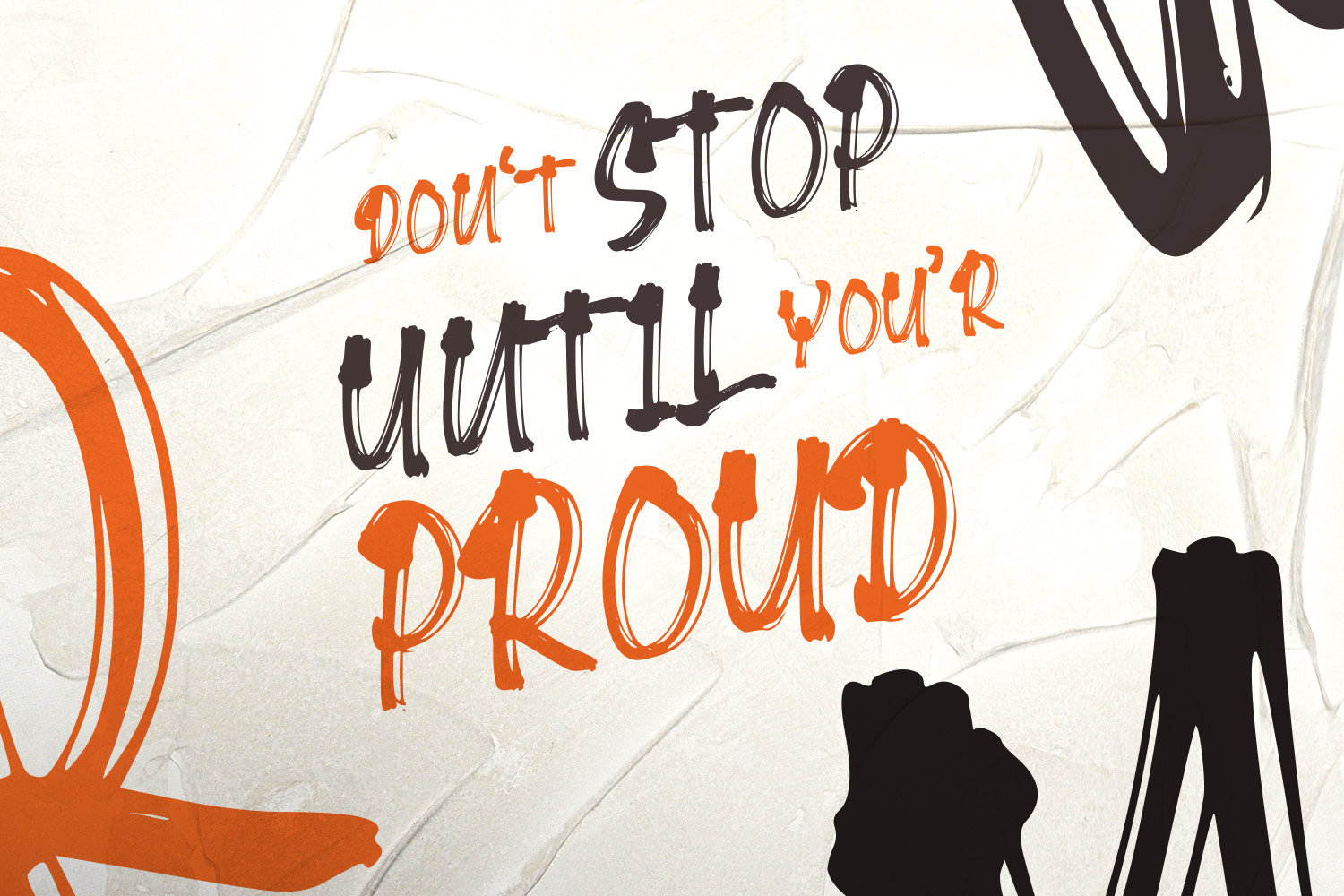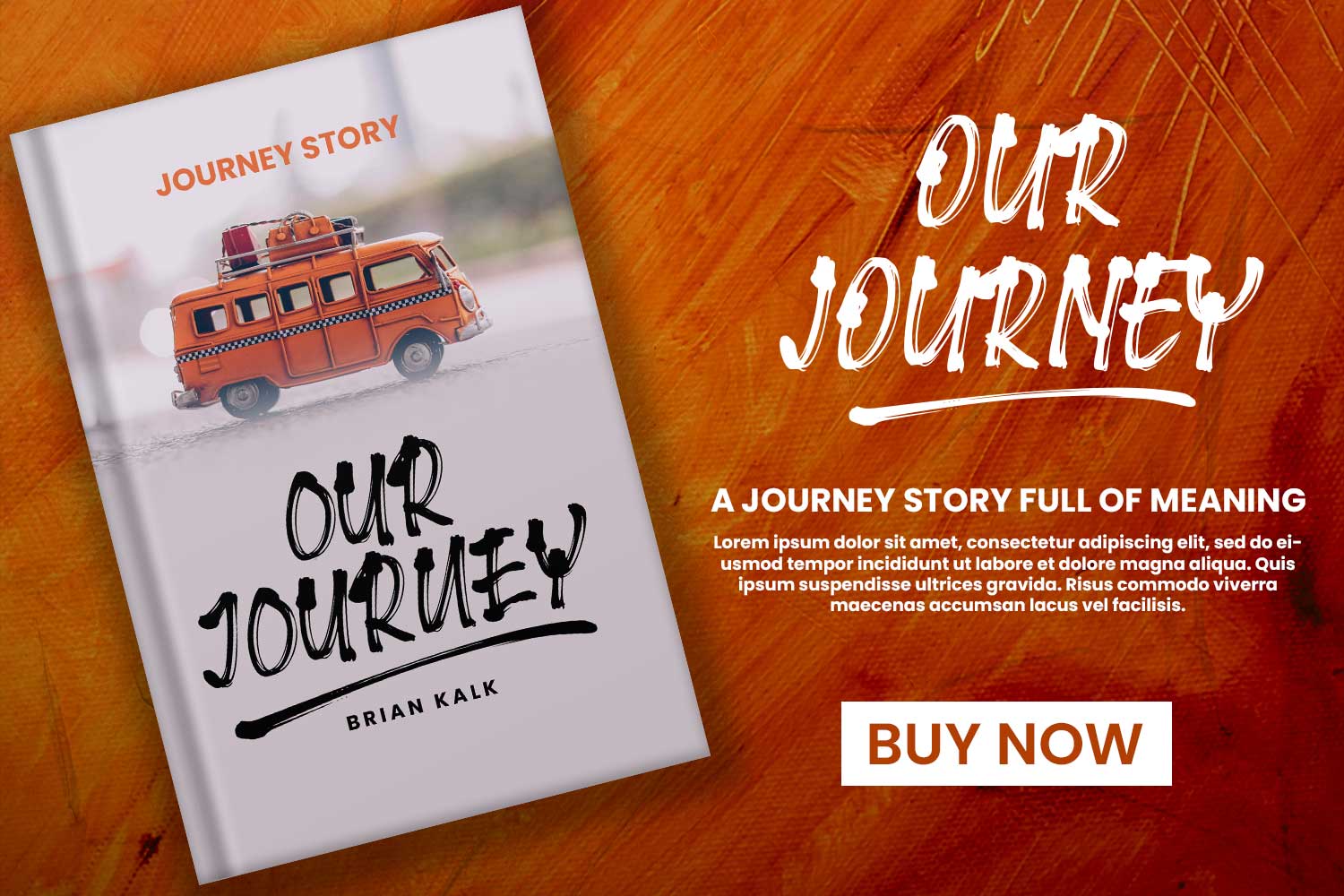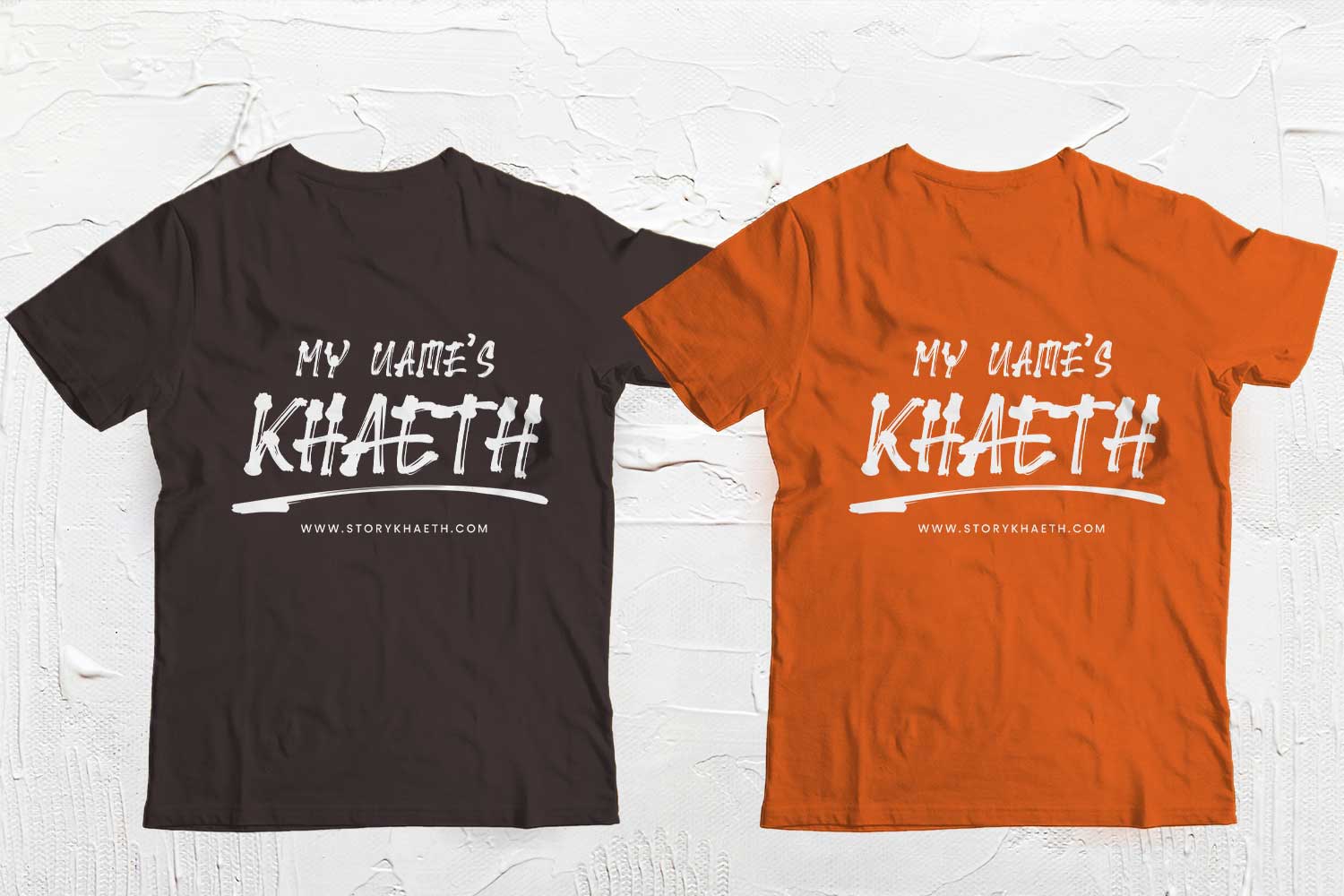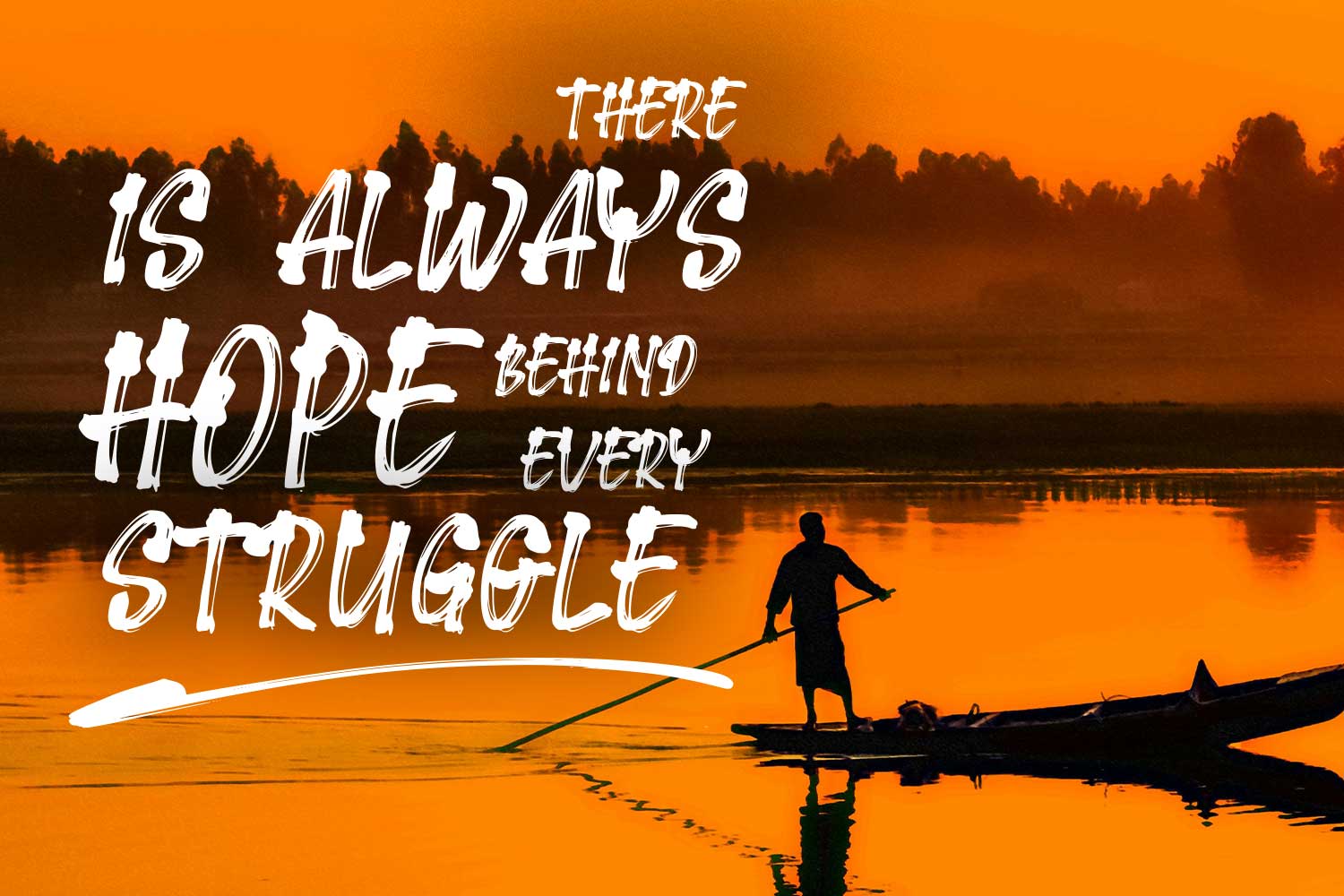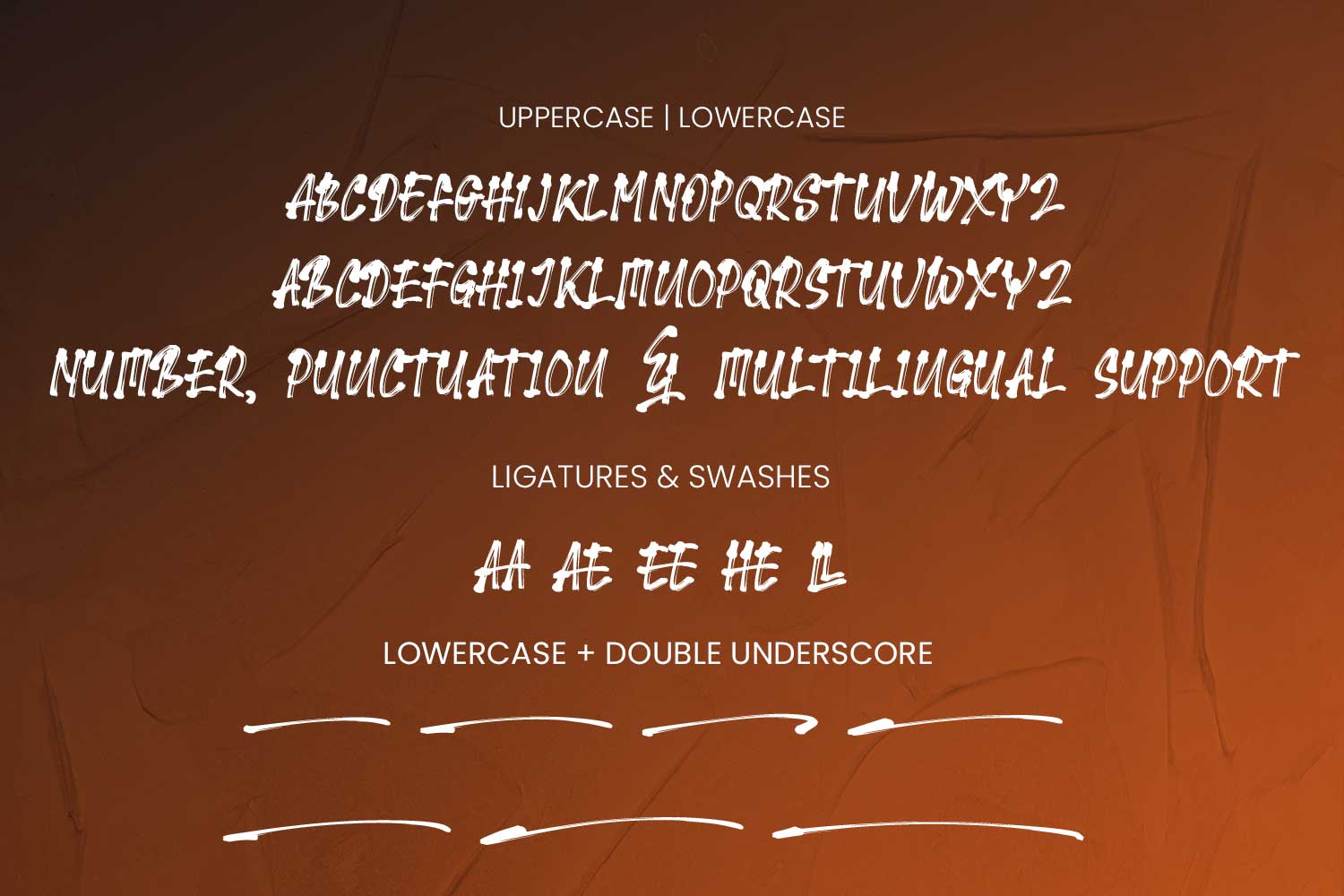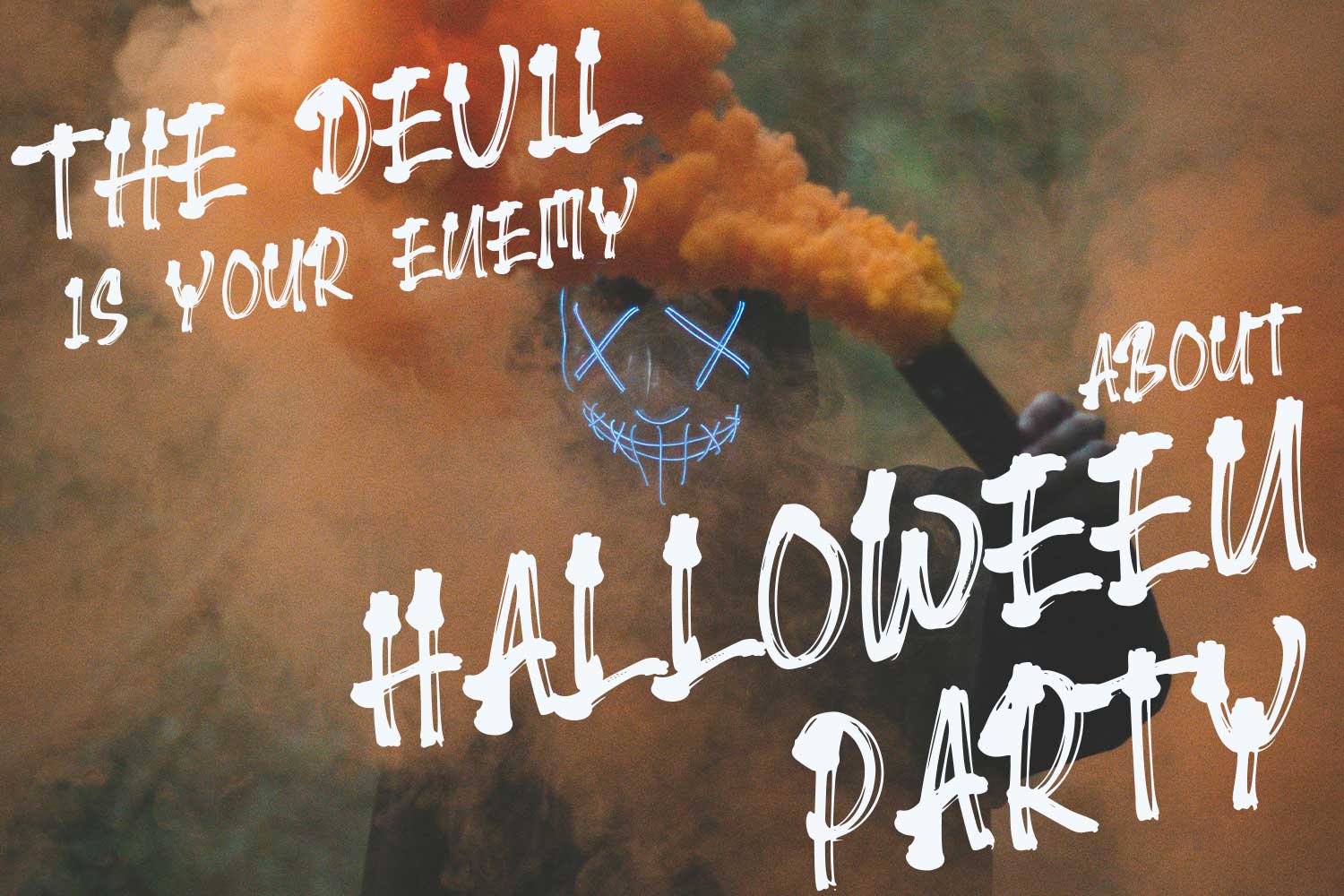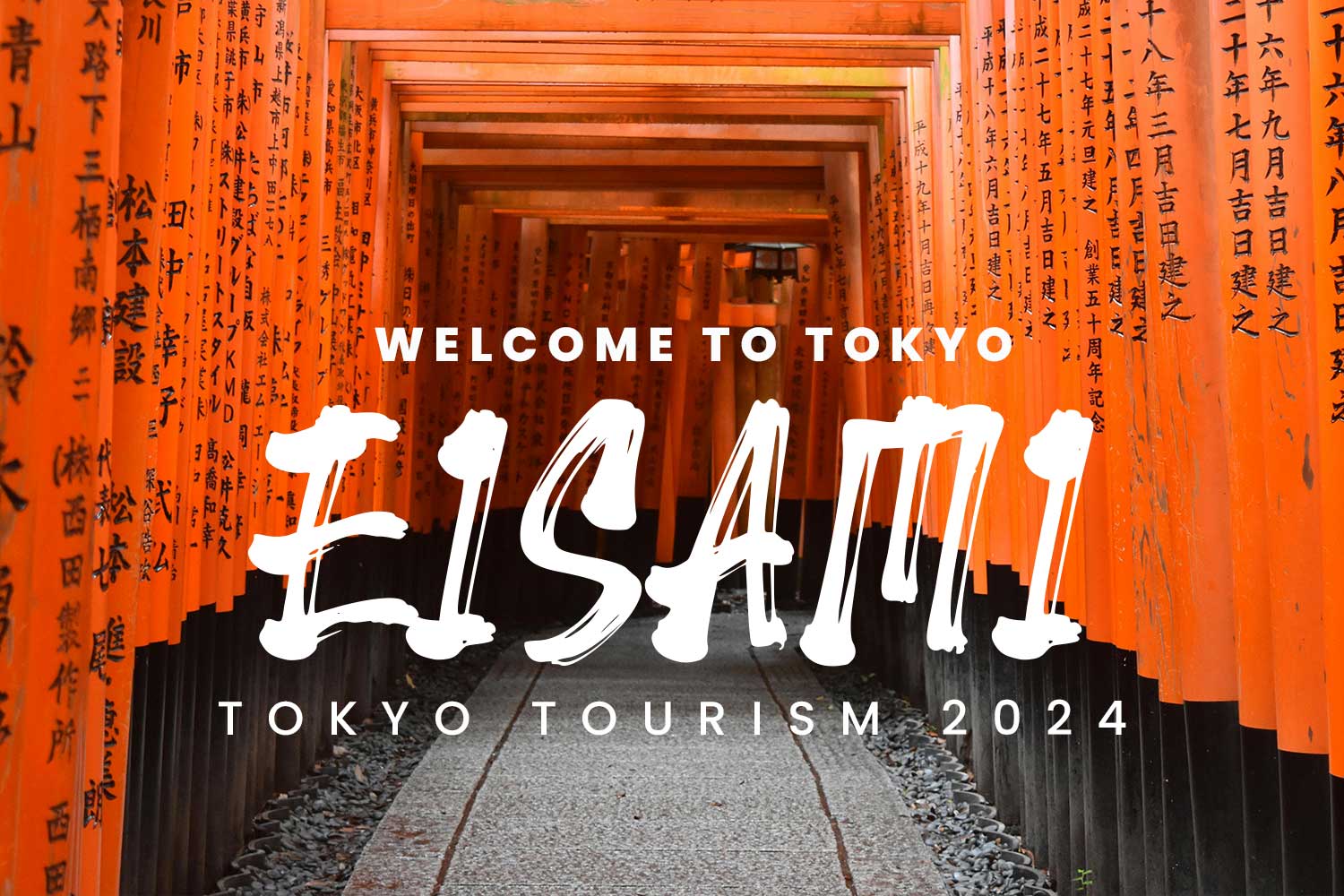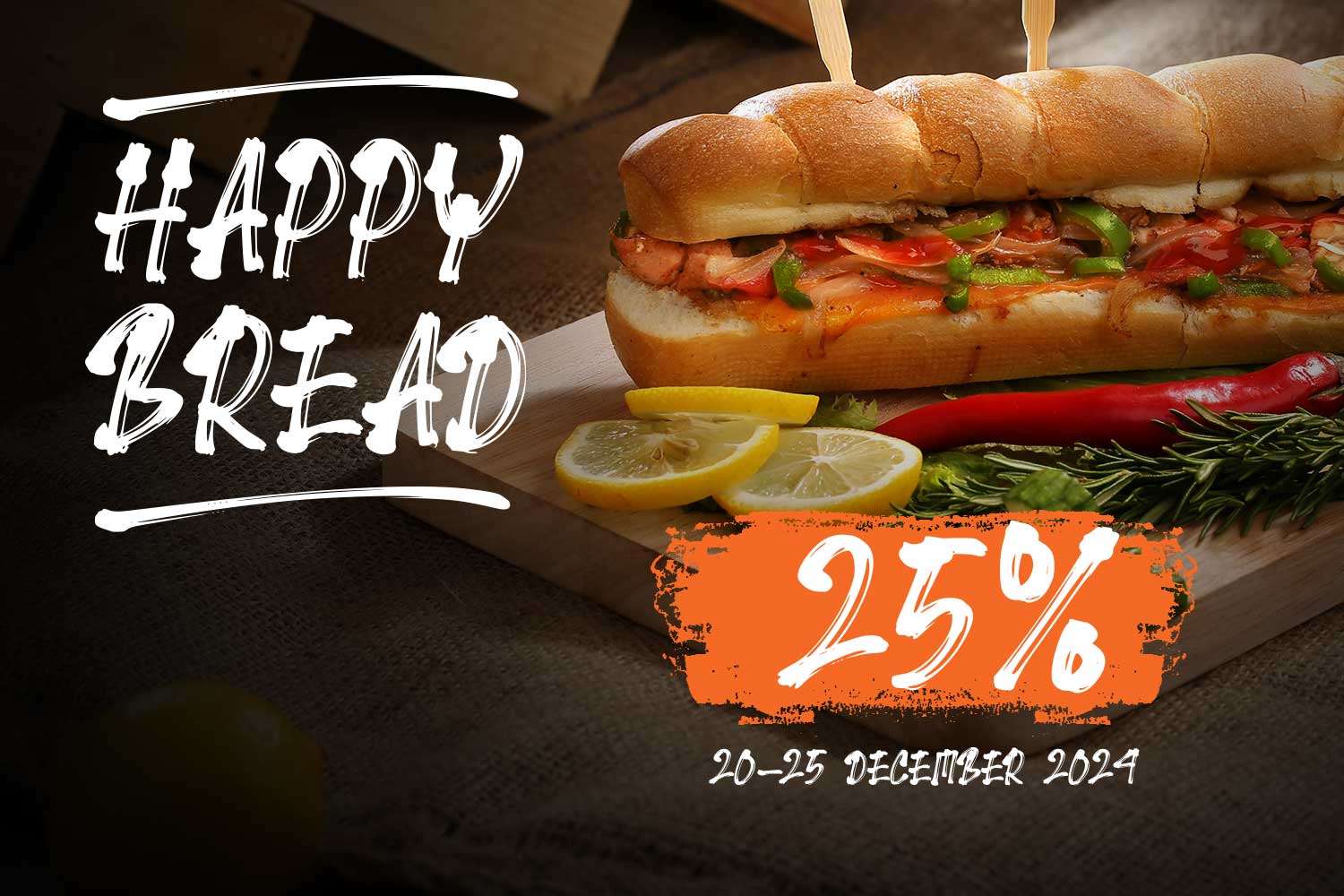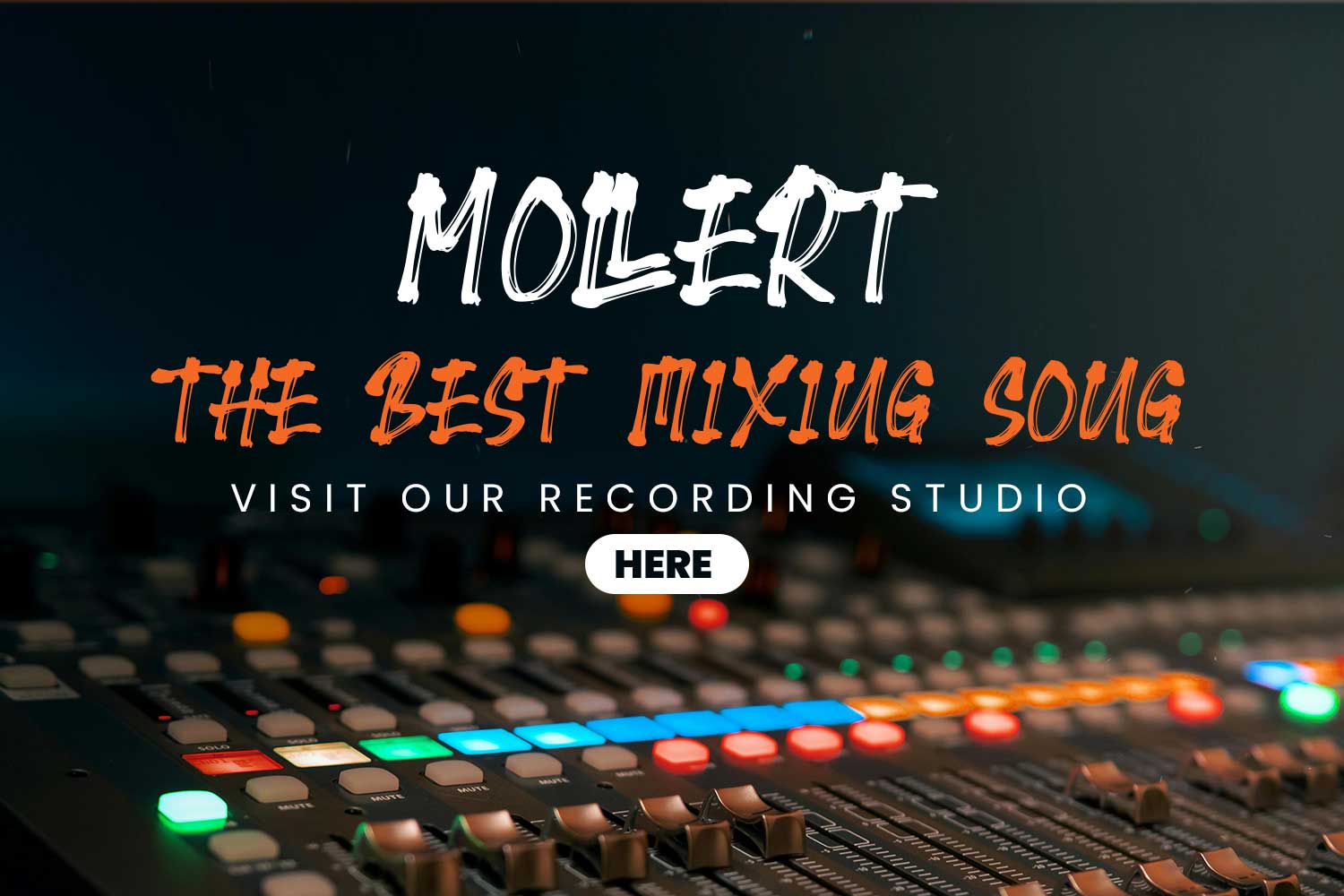
Keheln – Natural Brush Font
About Keheln - Natural Brush Font
Keheln is a natural brush font designed to bring a creative and energetic touch to your projects. With its dynamic strokes and authentic brush texture, this font is perfect for various design needs such as posters, branding, packaging, and other creative works.
It offers a relaxed yet professional vibe, ideal for creating expressive and bold designs. Keheln is the perfect choice to make your designs stand out and grab attention.
Key Features:
• Natural and bold brush style.
• Suitable for modern and casual designs.
• Energetic look with unique brush accents.
• Ligature & Swashes
• Lowercase + Double Underscore